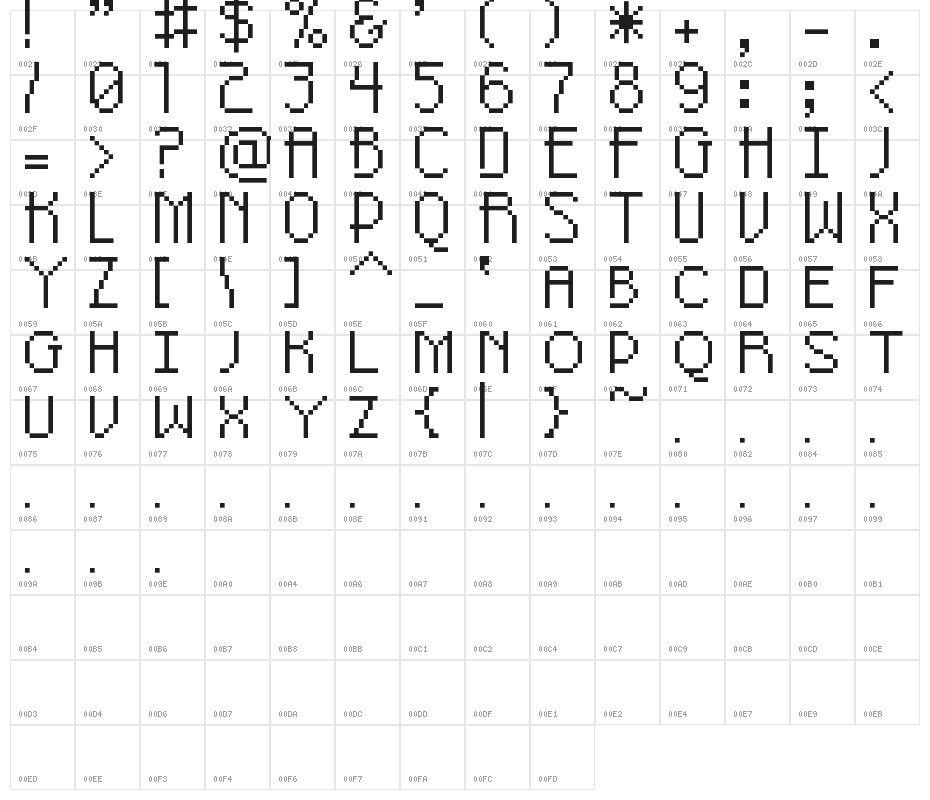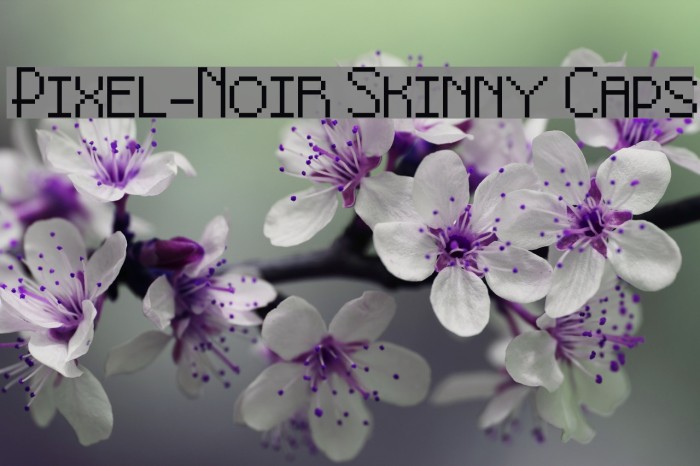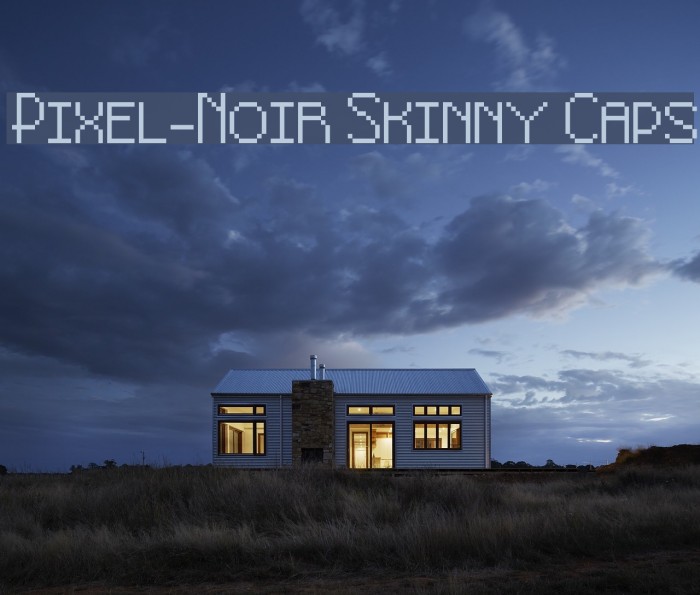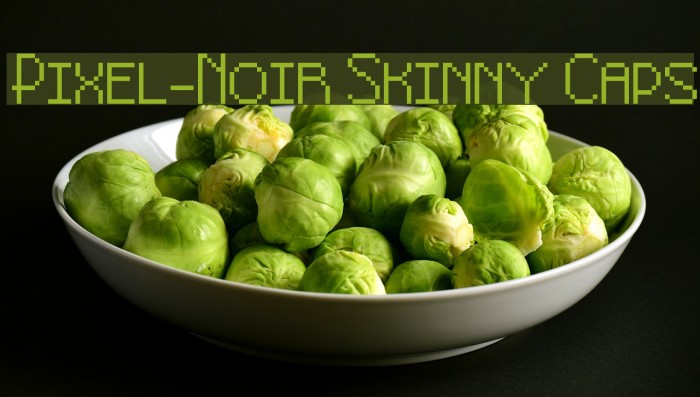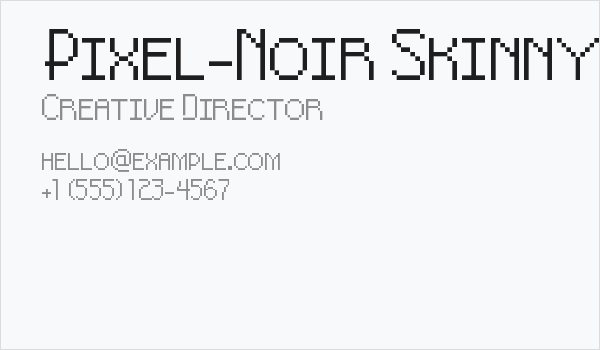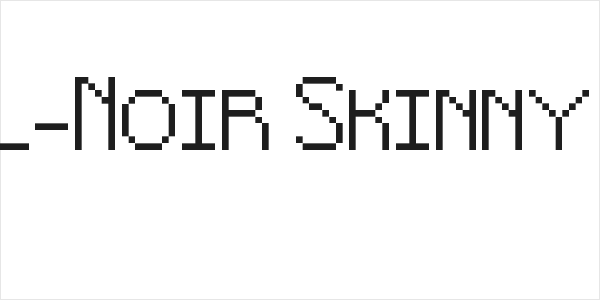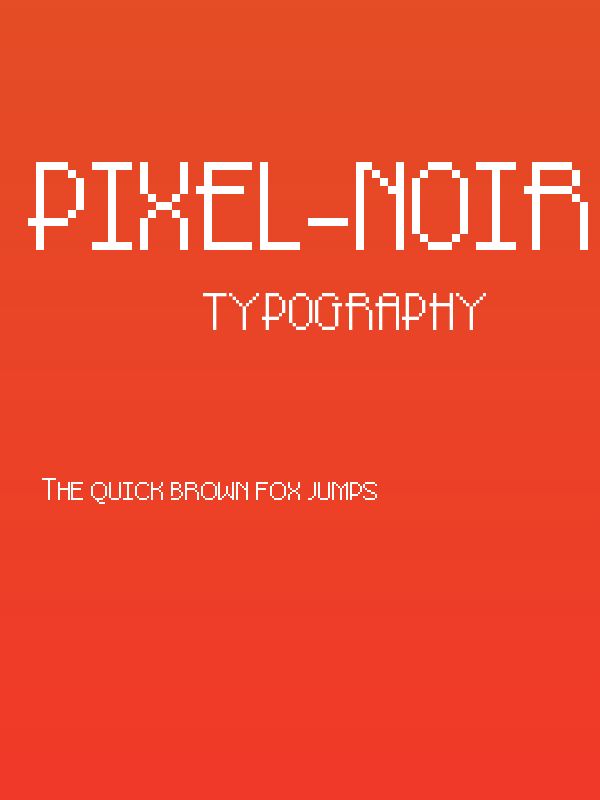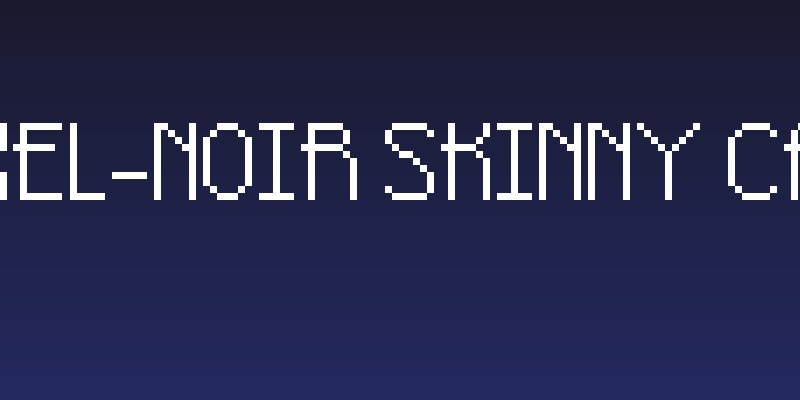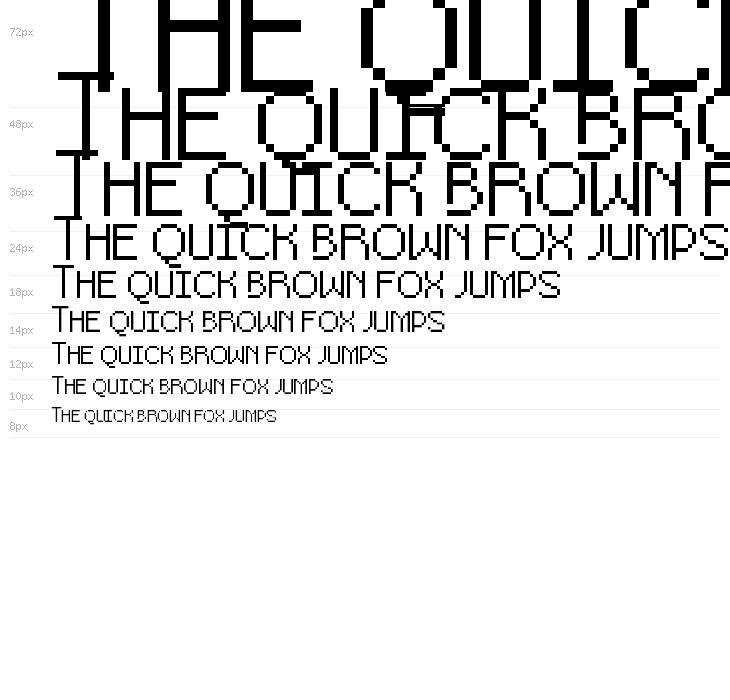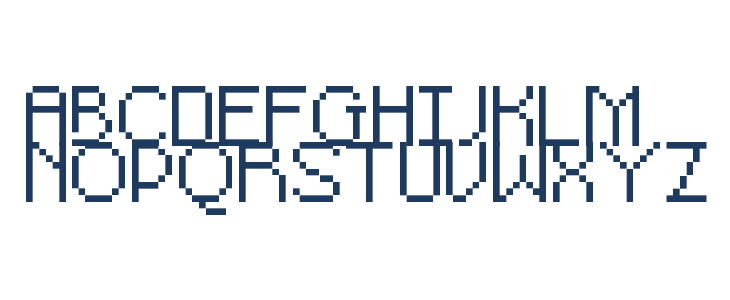
Pixel-Noir Skinny Caps Font
Pixel-Noir Skinny Caps Description
This font features a pixelated, grid-like design that evokes a retro, digital aesthetic reminiscent of early computer screens and video games. The characters are constructed using a uniform grid of pixels, creating a blocky and geometric appearance. Each letter and number is distinct, with clear separation between strokes, enhancing readability despite the pixelated style. The font maintains a consistent height across all characters, contributing to a cohesive and orderly look. Its nostalgic charm makes it ideal for projects that aim to capture a vintage digital feel.
| Proposed Projects | Ideal for retro video game designs, digital art projects, tech-themed posters, and any creative work that seeks to evoke a sense of nostalgia for early digital aesthetics. |